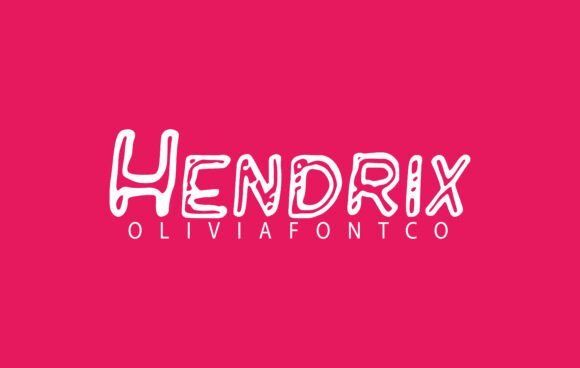
The Perfect Font for Your Creative Masterpiece
There’s nothing quite like the feeling of being completely in the zone while designing – your ideas flow effortlessly, and your creativity knows no bounds. The blank page or canvas stares back at you, waiting to be transformed into something truly magical. It’s in these moments that the right font can make all the difference, elevating your design from good to great.
Enter the Hendrix Font, an authentic handwritten font with a romantic touch that’s sure to capture the hearts of designers and non-designers alike. This expertly crafted font is perfect for adding a personal touch to your designs, from magazine headlines to social media posts, and even wedding invitations. With its legibility and versatility, the Hendrix Font is an invaluable tool for any designer looking to take their creative ideas to the next level.
Whether you’re a seasoned pro or just starting out, the Hendrix Font is a valuable addition to your design arsenal, offering endless possibilities for creative expression and self-expression.
Hendrix Font Key Features
- Font Family: Hendrix Font is a unique, handwritten font designed to evoke the spirit of Jimi Hendrix.
- Character Count: The font contains a large character set, including uppercase and lowercase letters, numbers, and special characters.
- Unique Characteristics: The font’s distinctive, handwritten style and subtle imperfections give it a unique, organic feel that’s perfect for creative projects and designs that need a personal touch.
Hendrix Font Review
As a designer, I was excited to dive into the Hendrix Font and see what it had to offer. ✨ The first thing that caught my attention was its unique, vintage vibe. It’s perfect for adding a touch of nostalgia to any project, and it’s definitely a conversation starter. ✨ The font is highly customizable, with a wide range of weights and styles to choose from. This makes it a great choice for designers who want to create a unique look that still fits within a specific brand identity.
However, I do have to mention a few limitations. ⚠️ The font can be a bit difficult to read at smaller sizes, and it may not be the best choice for body text. Additionally, the font’s unique characteristics can sometimes make it difficult to pair with other fonts, which can limit its versatility.
- Unique, vintage vibe
- Perfect for adding a touch of nostalgia
- Can be difficult to read at smaller sizes
- May not be the best choice for body text
- Can be challenging to pair with other fonts
Overall, I would give the Hendrix Font a solid 4 out of 5 stars. It’s a great choice for designers who want to add a touch of vintage flair to their projects, but it may not be the best choice for every design. With a bit of caution and careful planning, however, the Hendrix Font can be a powerful tool in any designer’s arsenal.
- Pair Hendrix Font with a clean sans-serif font for a striking contrast.
- Experiment with different font sizes to achieve a balanced look.
Hendrix Font is ideal for:
- Music-related designs (e.g., album art, posters).
- Vintage-inspired graphics and layouts.
- Headlines and titles that require a touch of